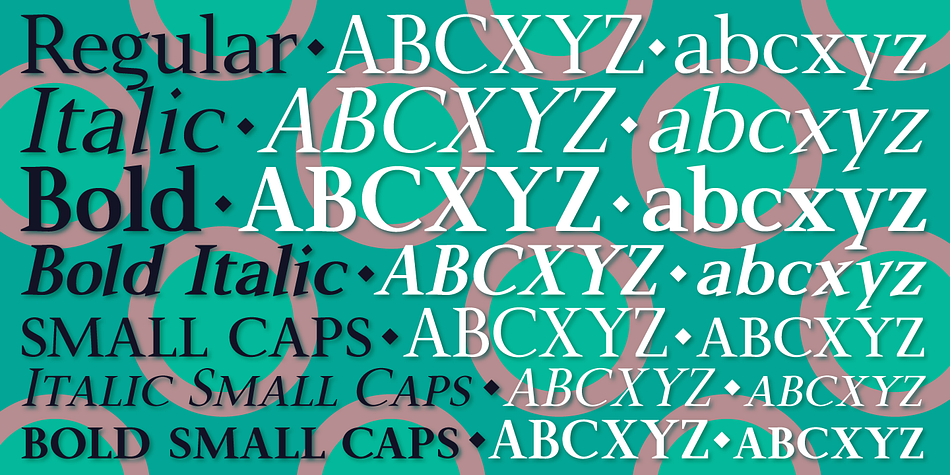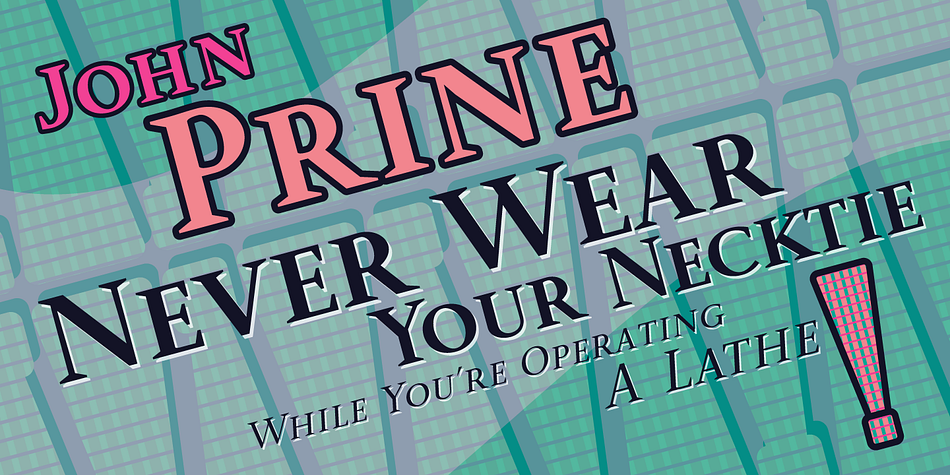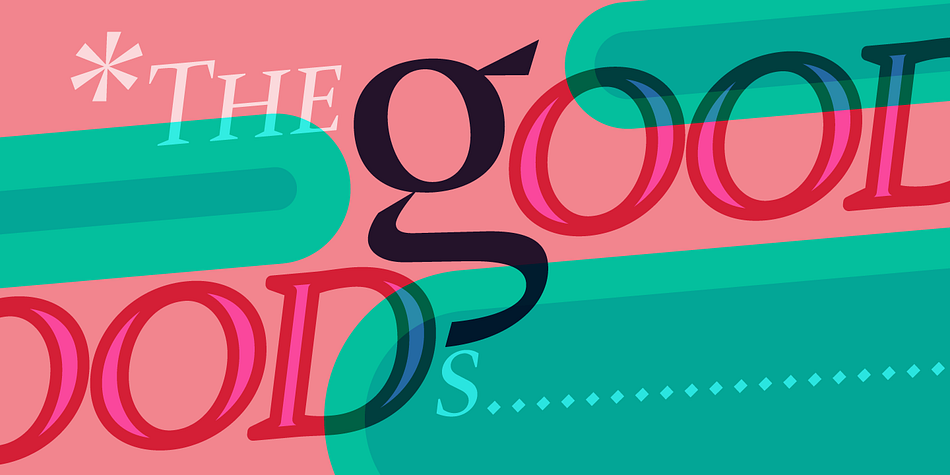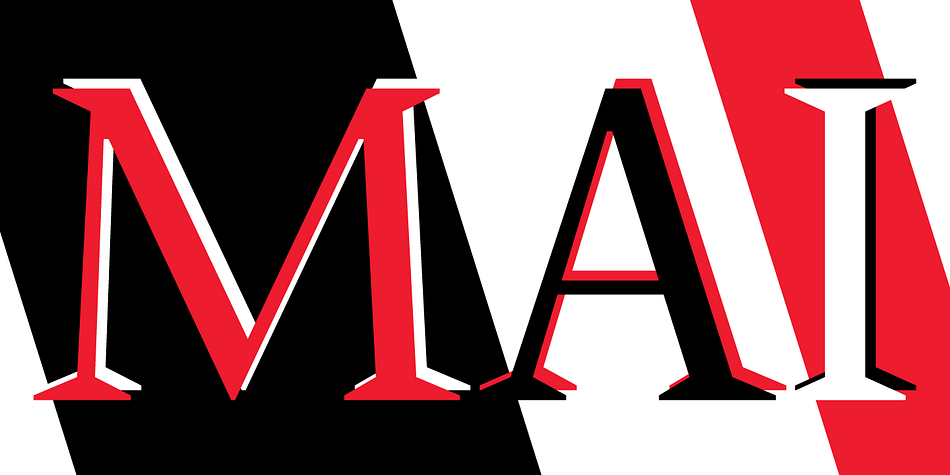
P22 Mai is a serif and display serif font family. This typeface has twelve styles and was published by International House of Fonts.
Mai Pro is a new transitional antiqua that features ligatures, smallcaps and full Central European support. Mai’s classic design is understated enough to be used for long running text applications yet includes unique characters suitable for design purposes. It is the Norwegian name for the month of May.